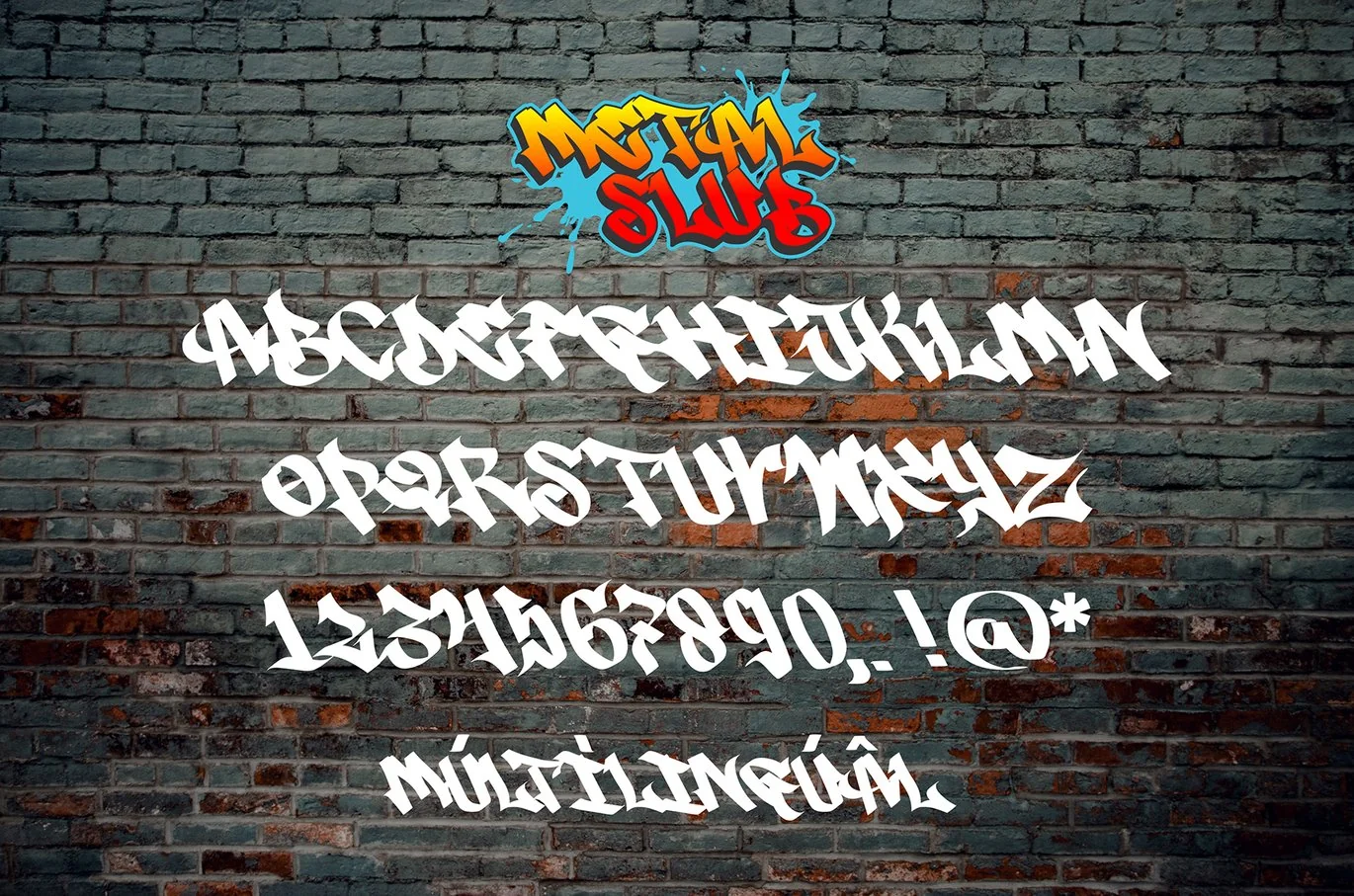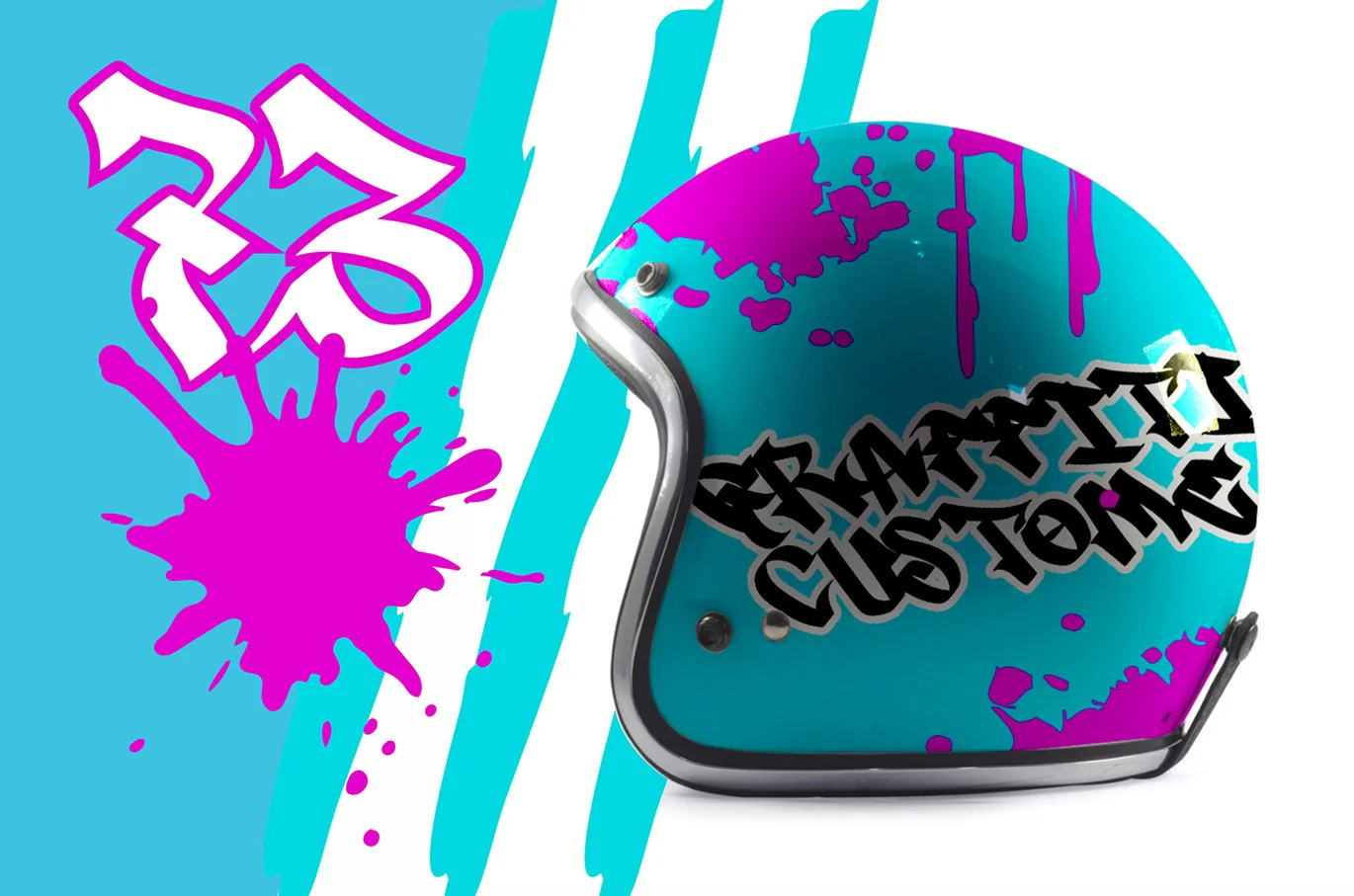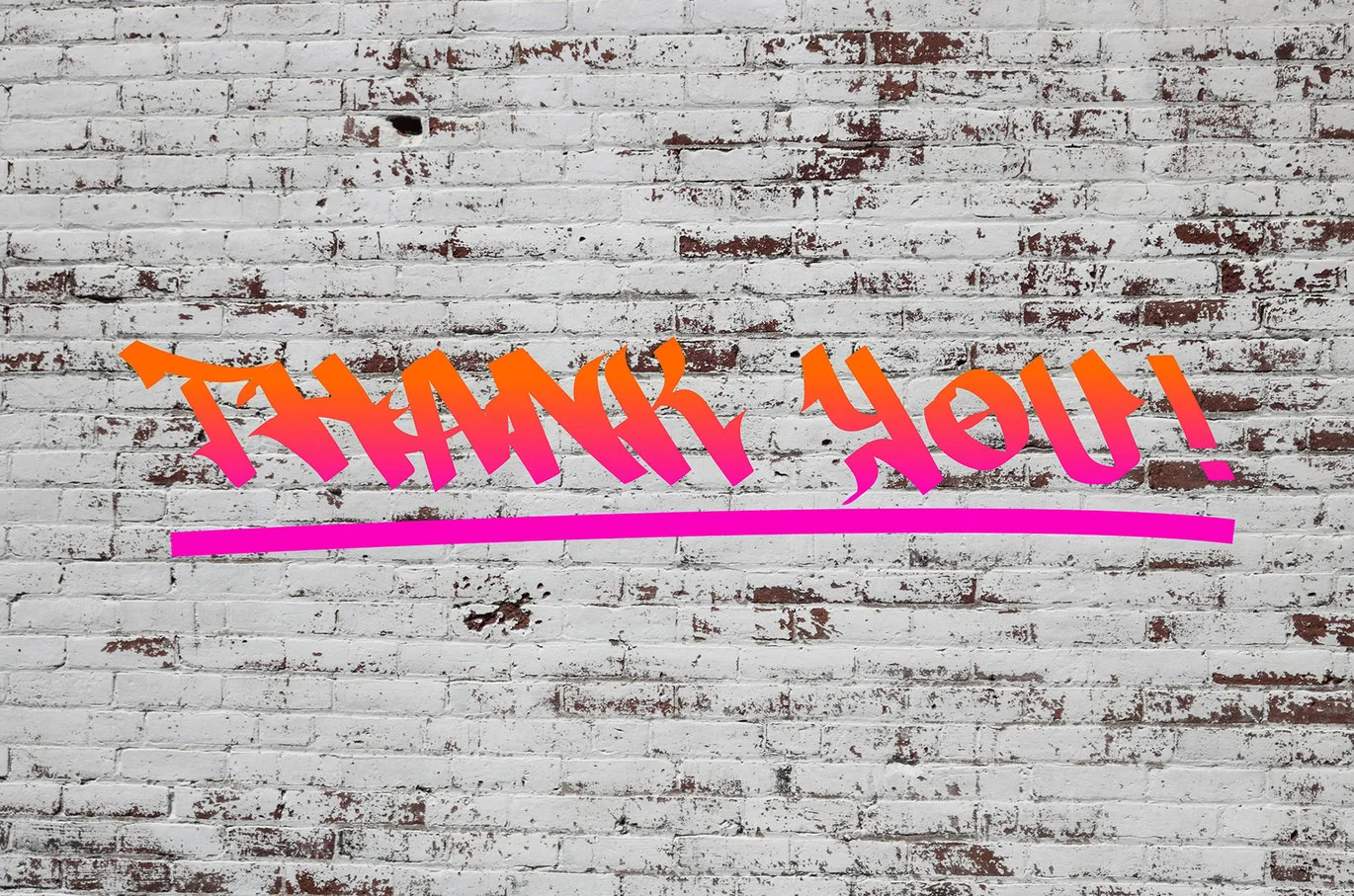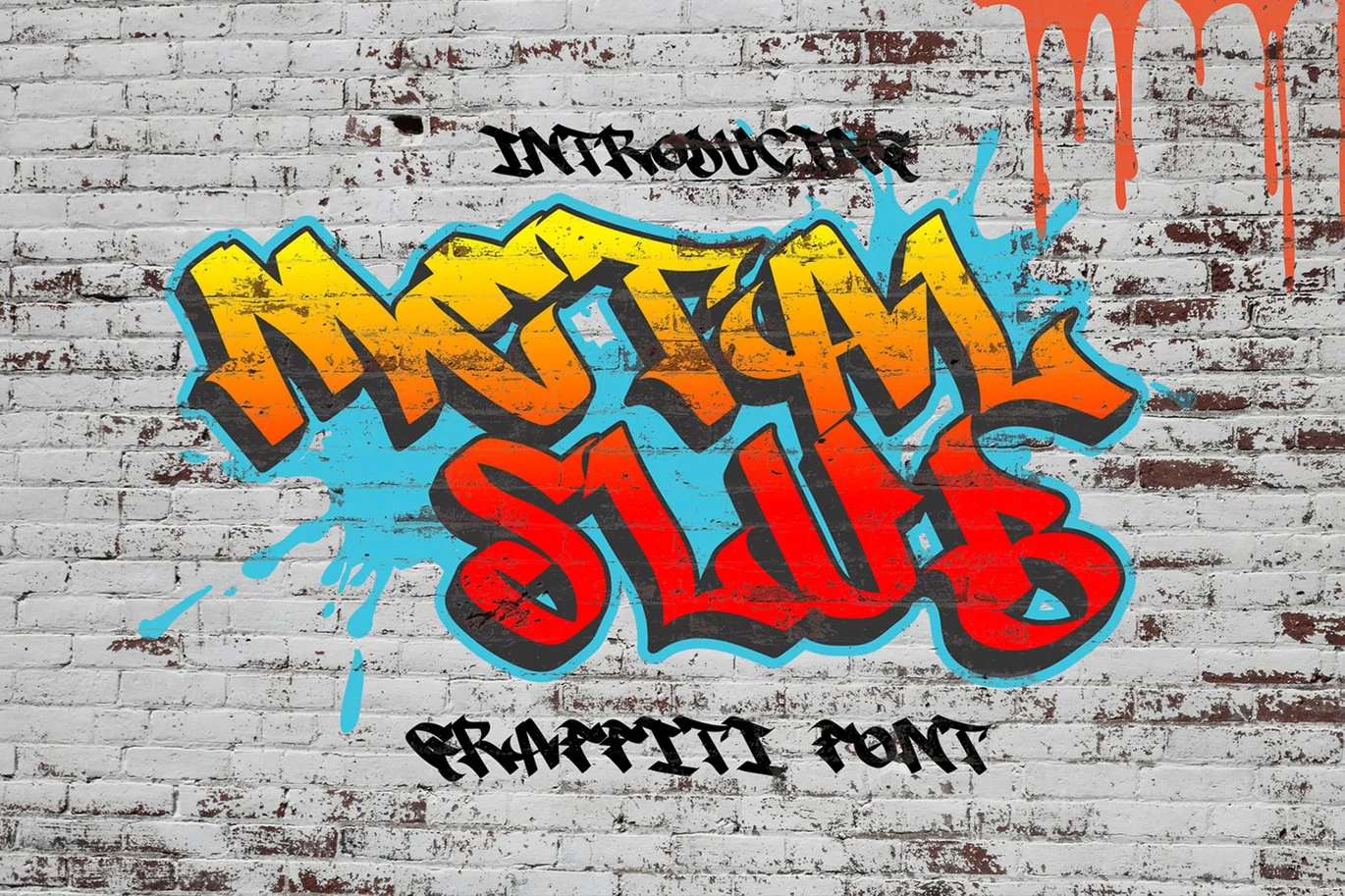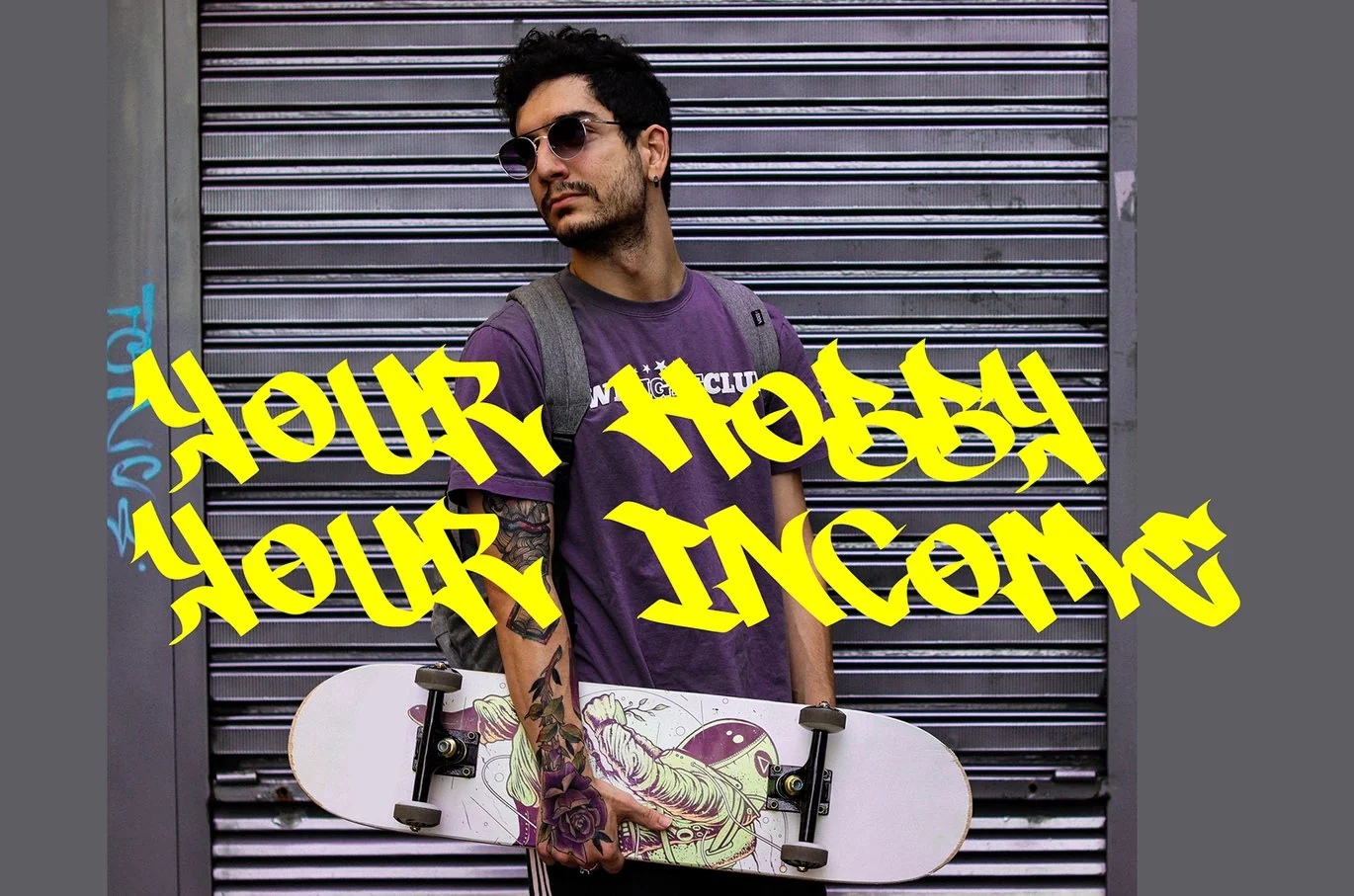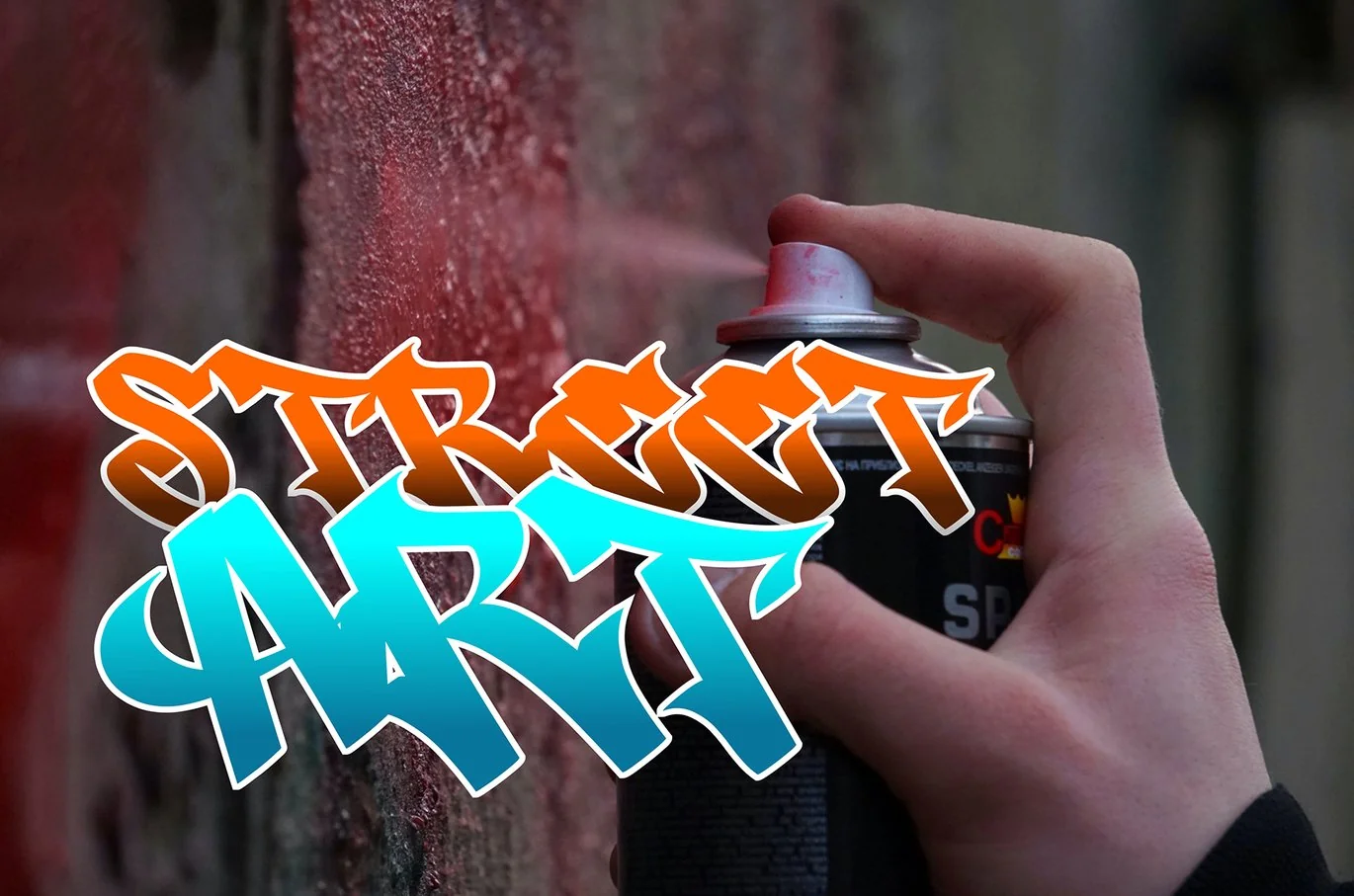
Metal Slub – Graffiti Tag Font
Hello, this is Metal Slub – Realistic Graffiti Tag Font!
This font was designed so that users can use it more easily and make graffiti designs easier. Metal Slub is very suitable for use in various media such as; packaging, logos, labels, posters, bulletins, typography, and many other media, especially with a graffiti look.